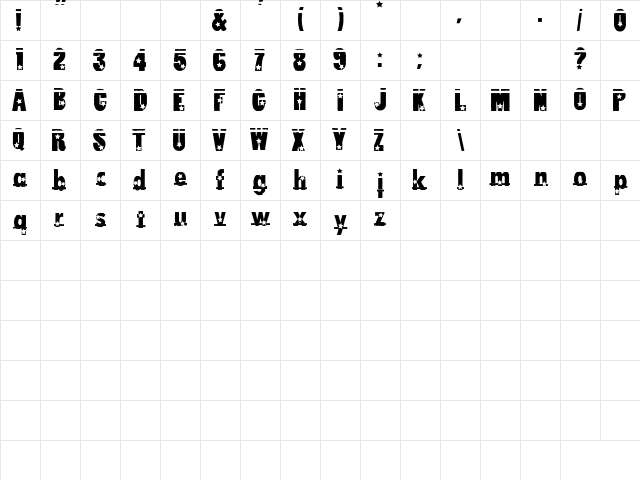
loserboi allstar Regular Free Font
Designer: kevin thomas / loserboi
Design Context for loserboi allstar
loserboi allstar is a composed and adaptable typeface that performs quietly and consistently across a wide range of design contexts.
Pro Tip: Use loserboi allstar in both headline and body roles to test its range before committing to a single application.